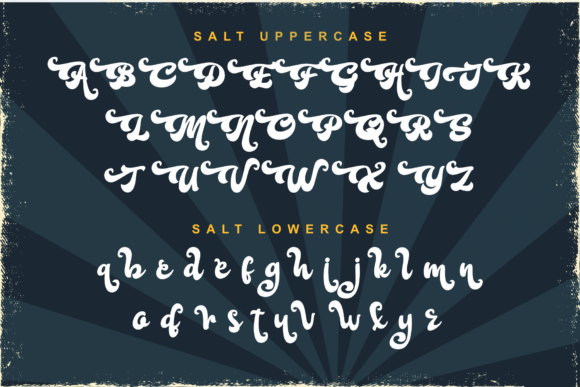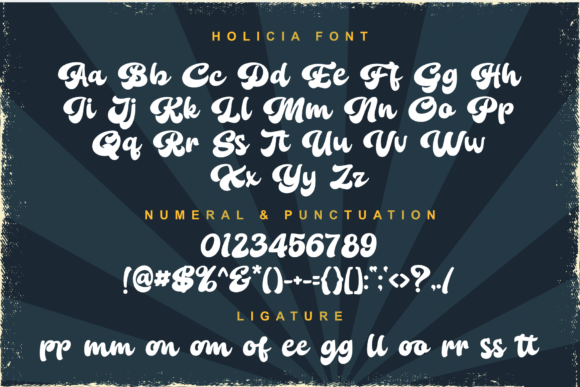
Holicya Font
db-ku.com - Script & Handwritten -- Holicya is a retro-style, bold and cursive handwritten font, crafted to give your headlines and logotype projects a stylish touch. This font reads as strong, confident, and dynamic and can add tons of nostalgic character to your designs.